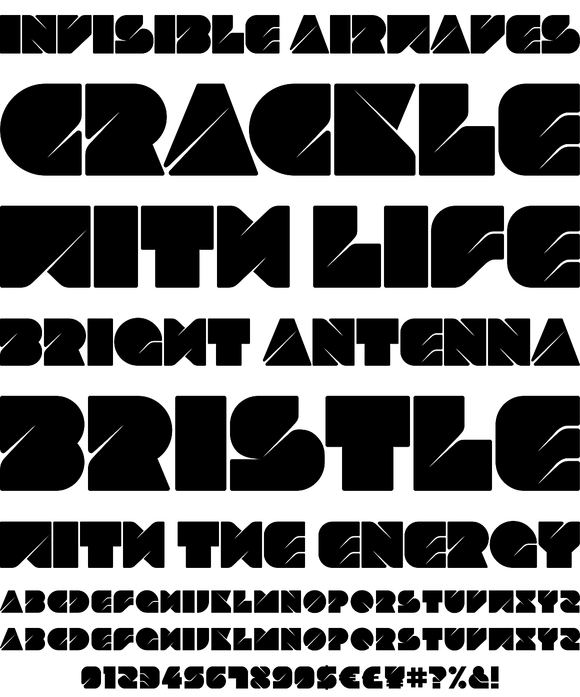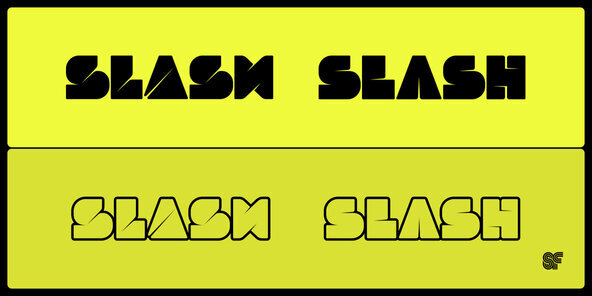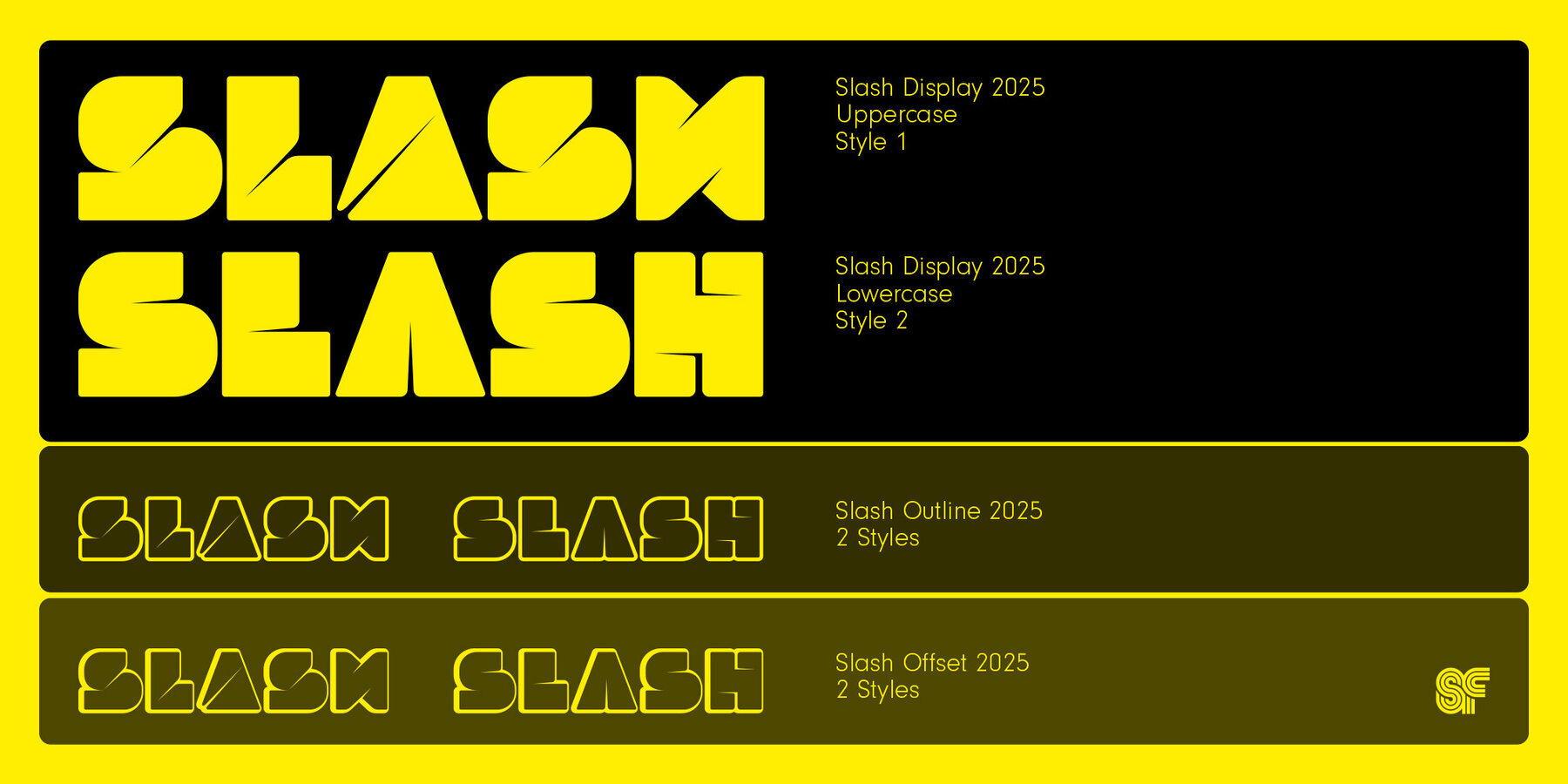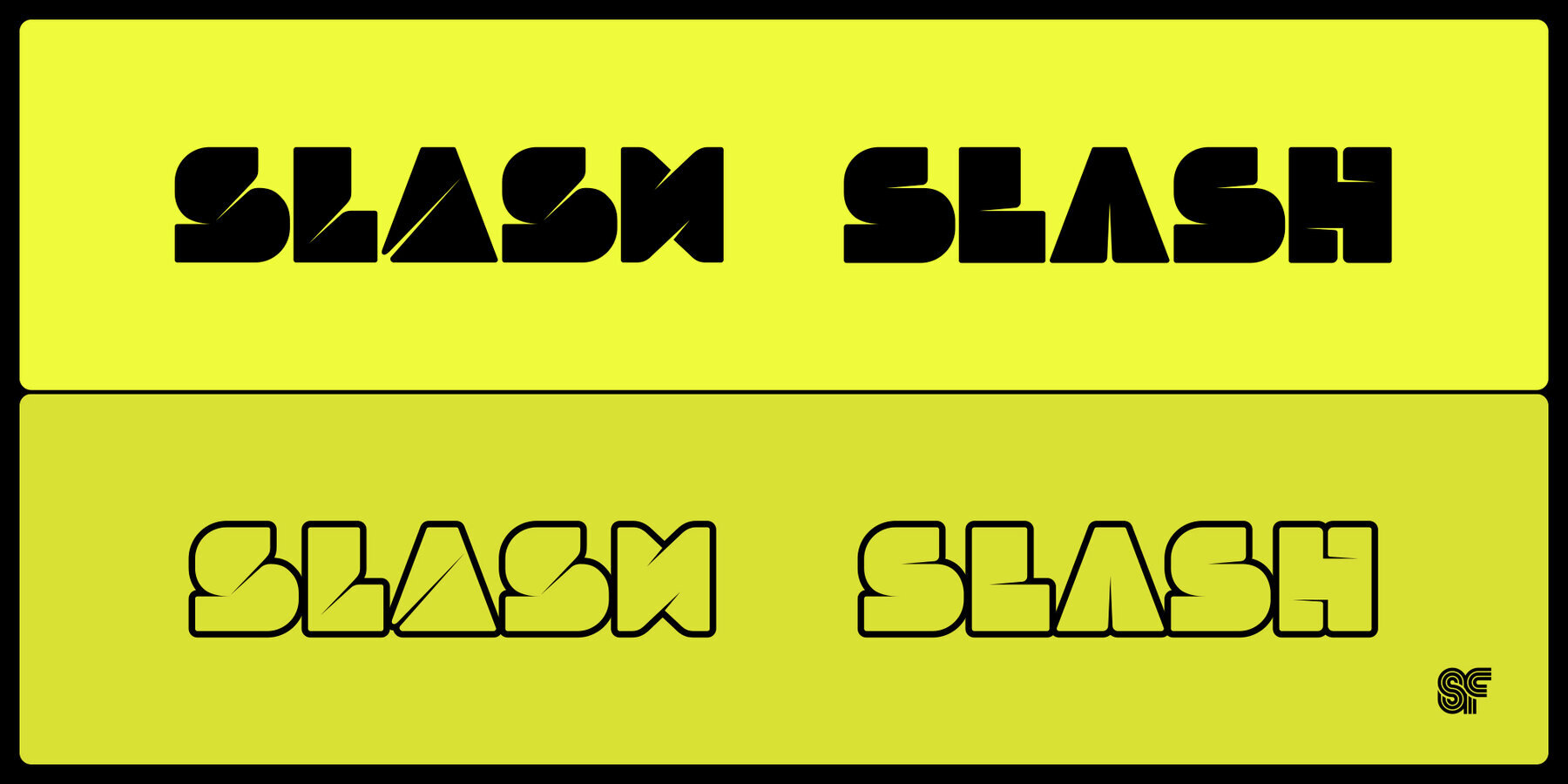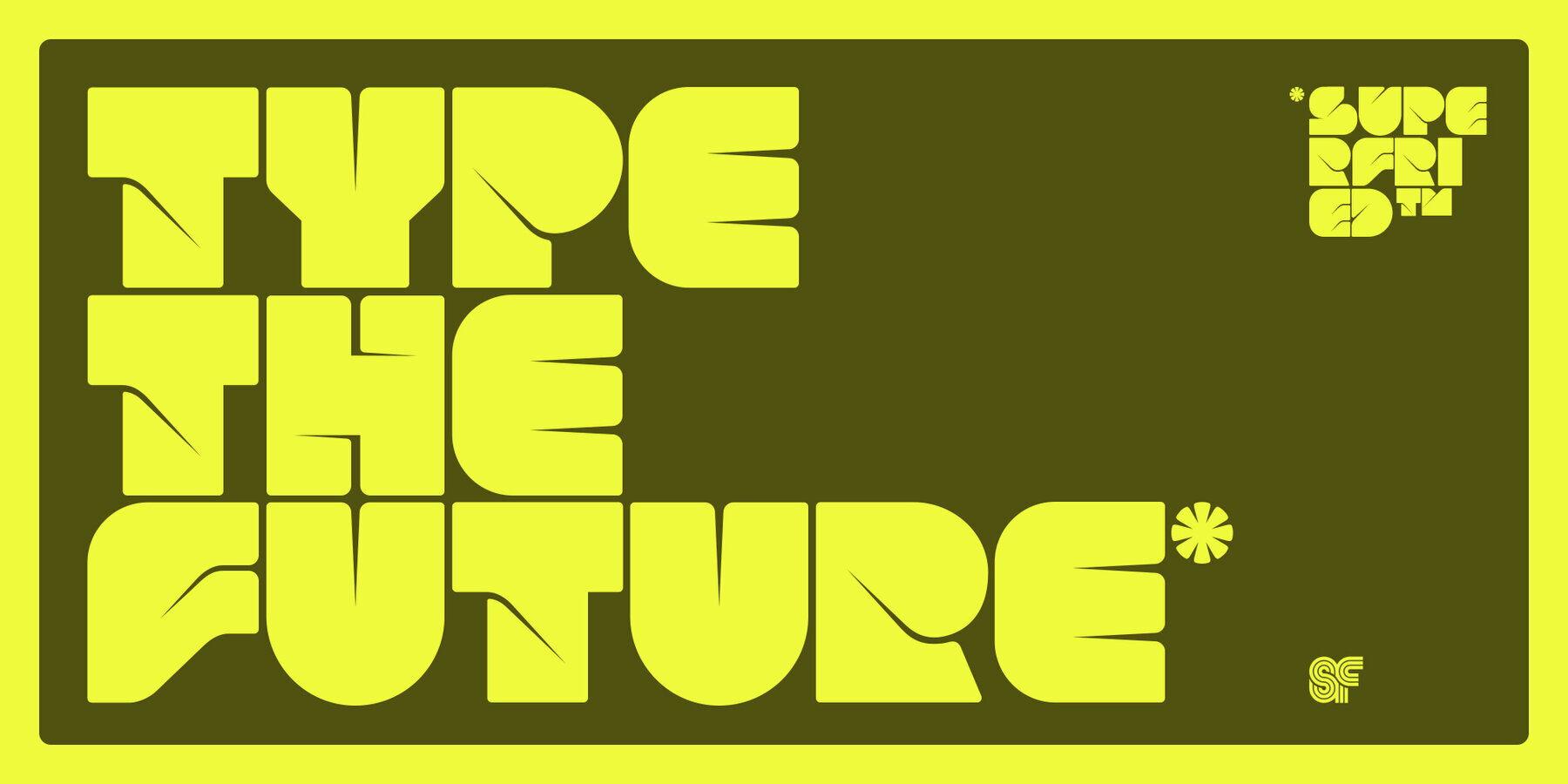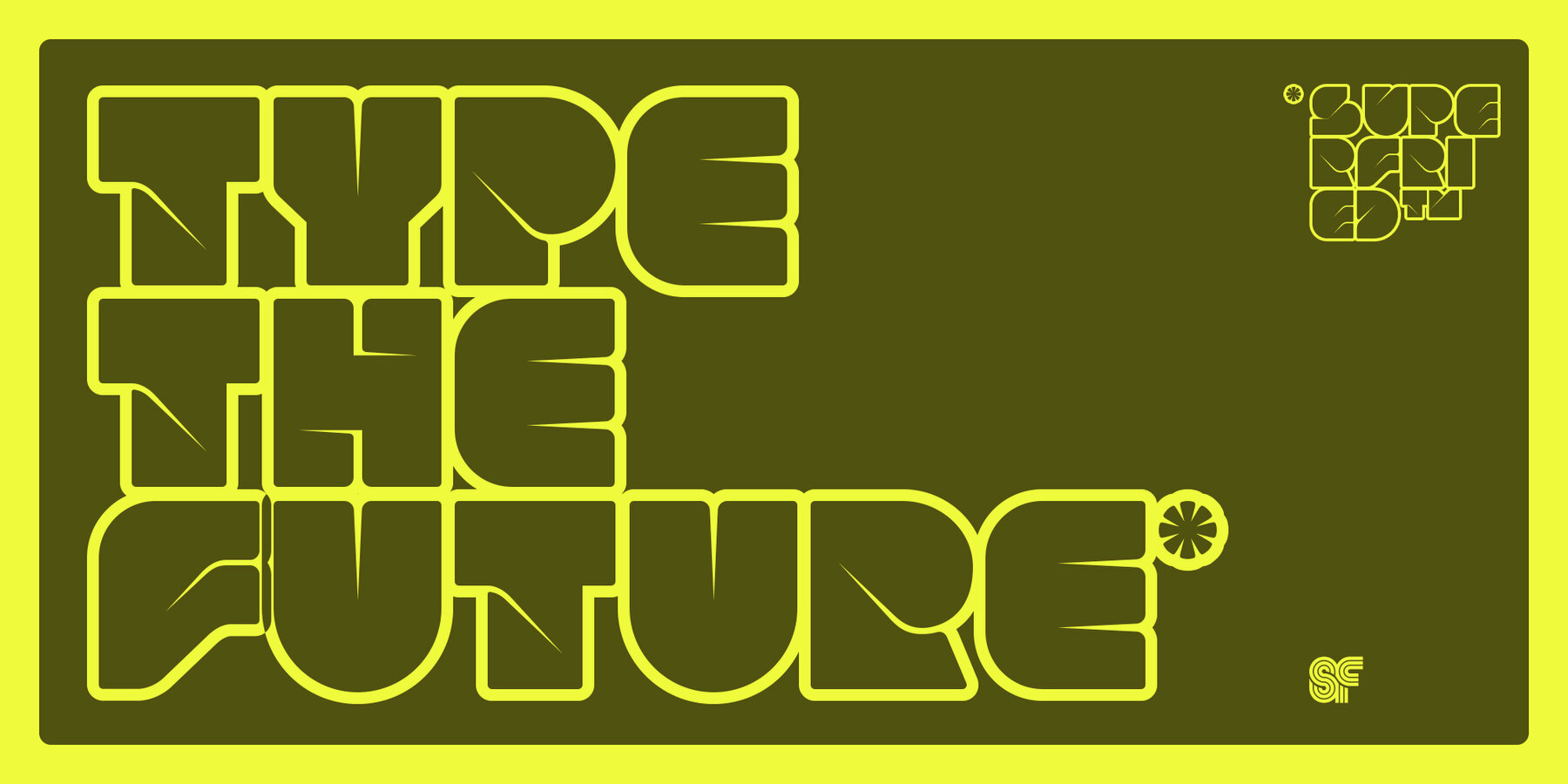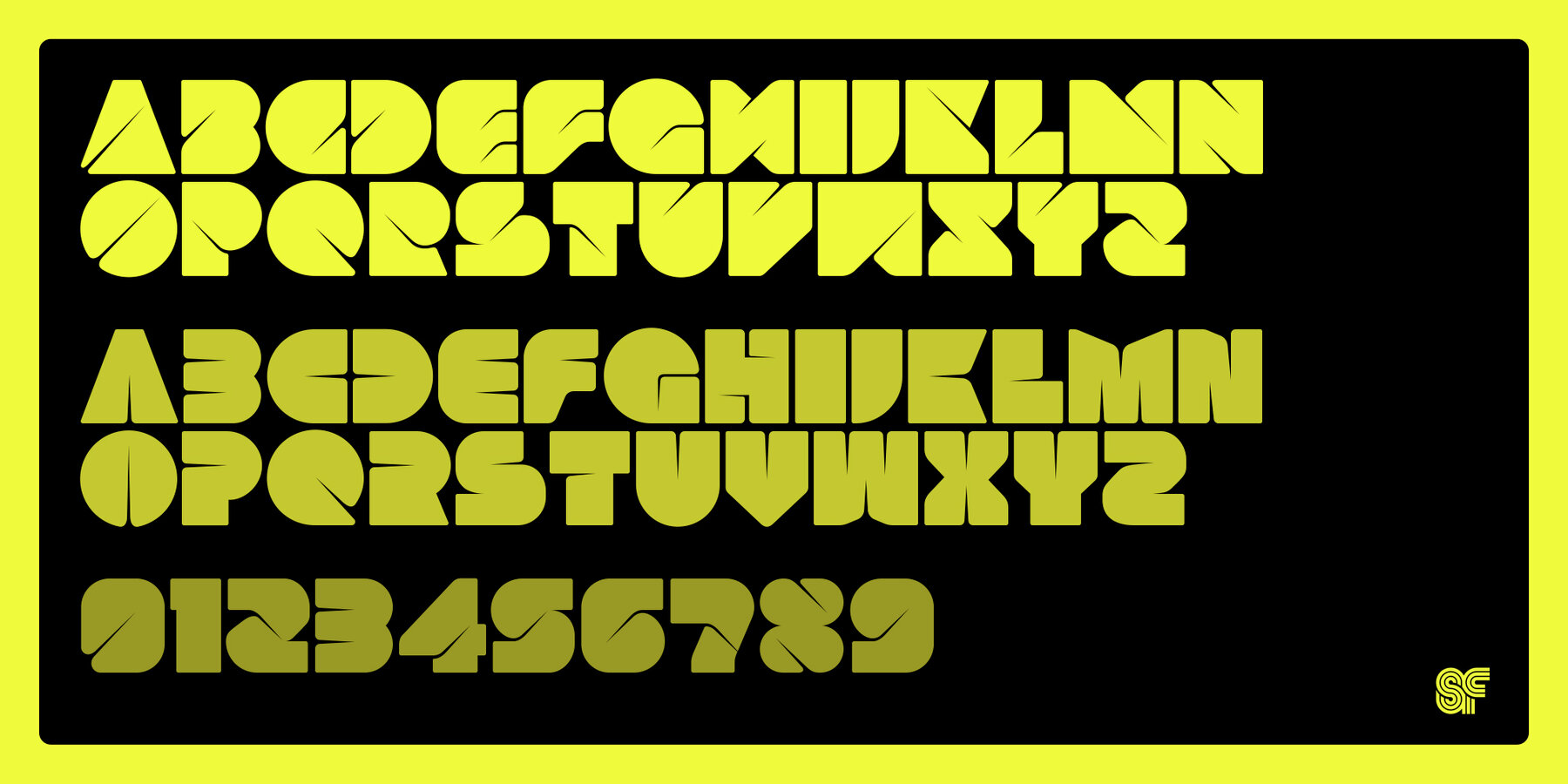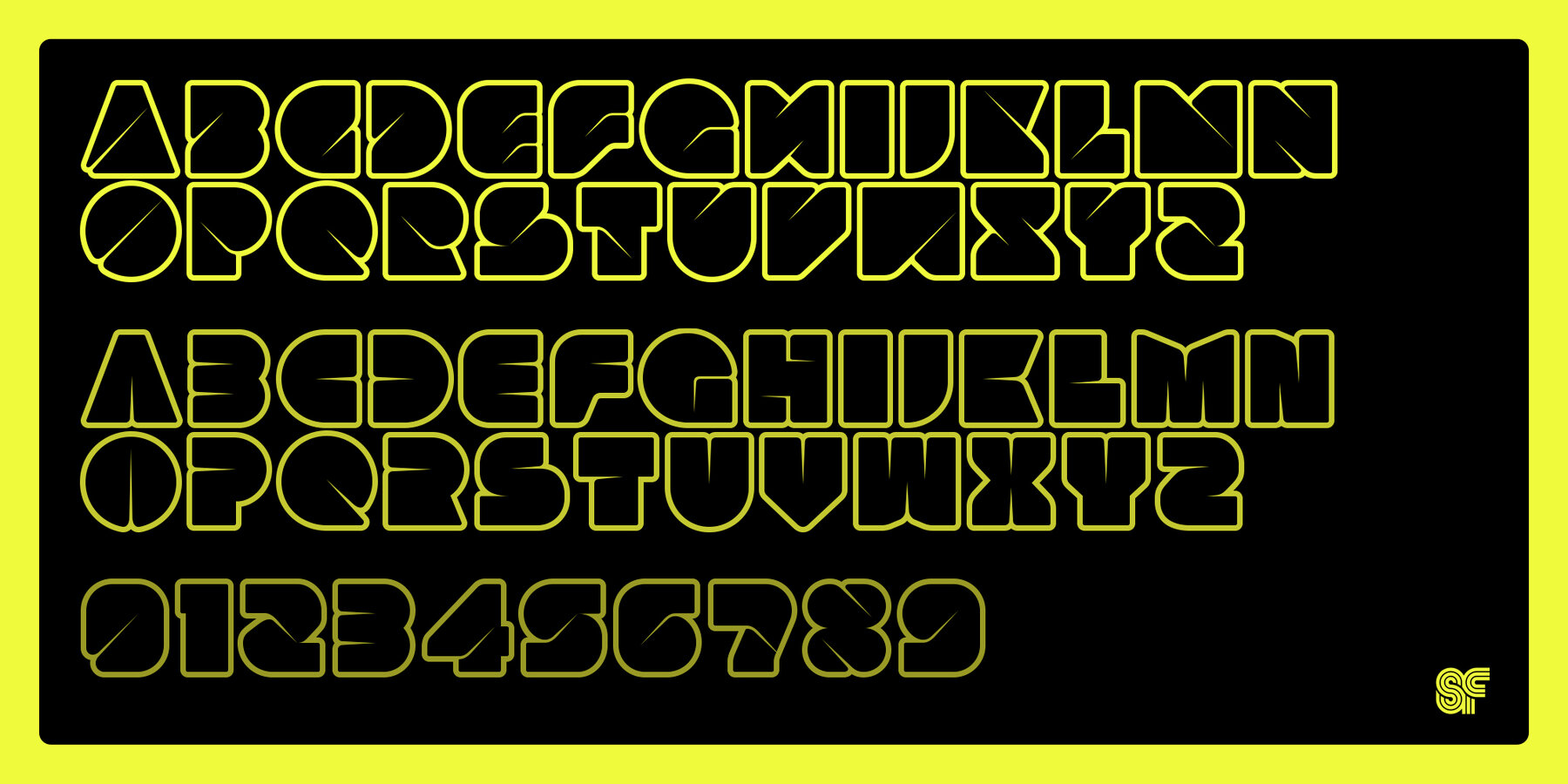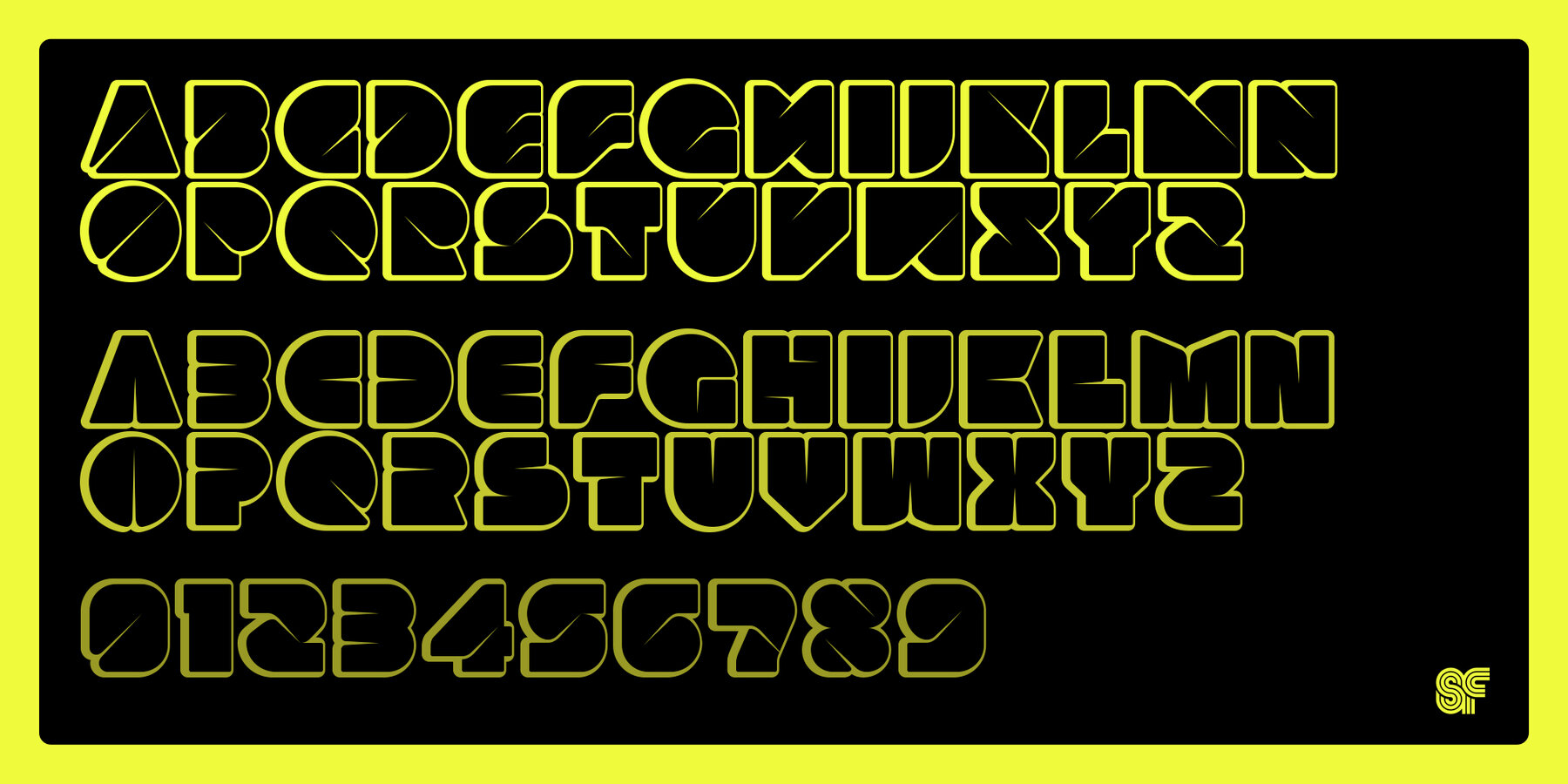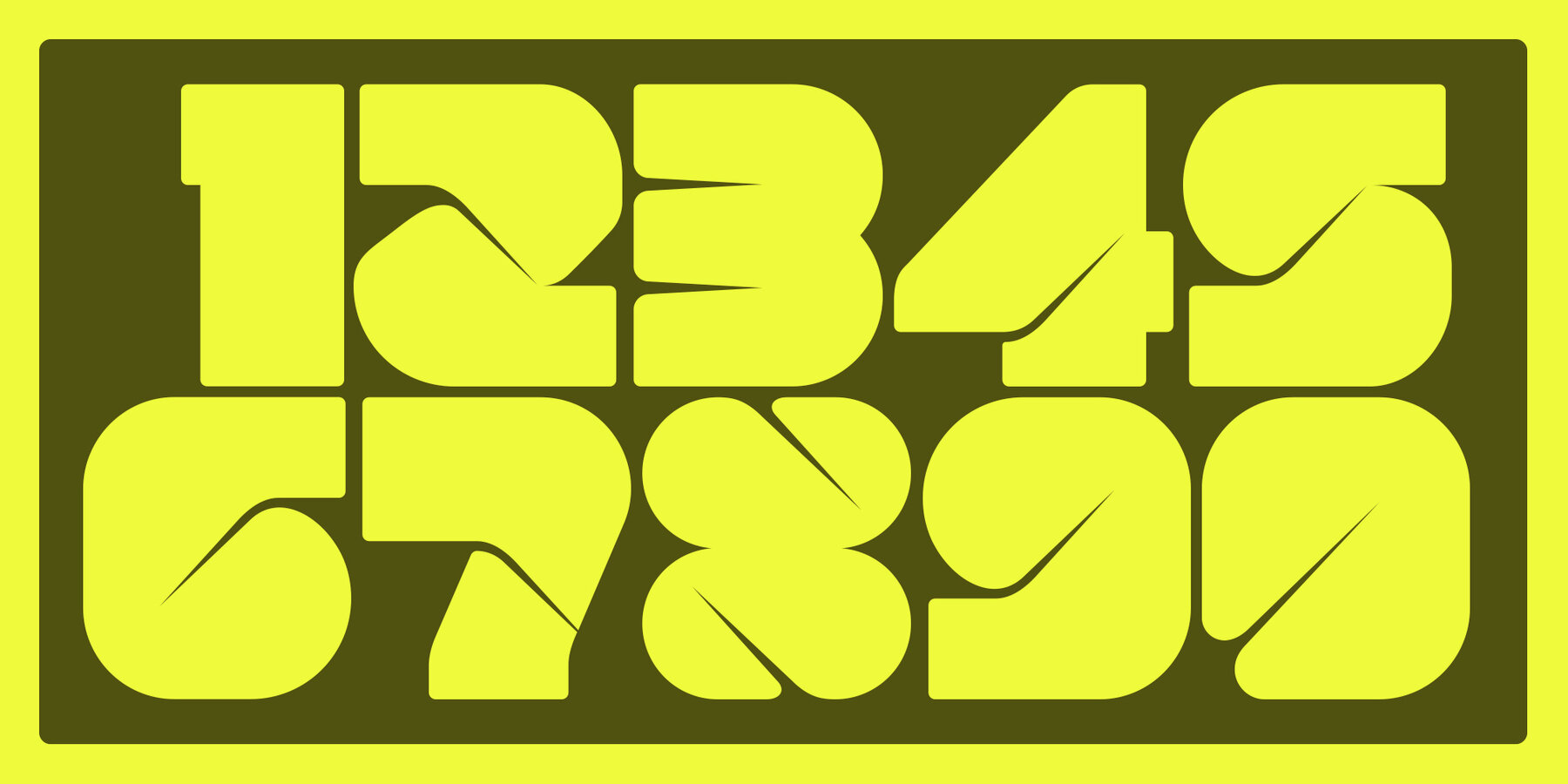
Slash
Slash is an experimental, all-caps, no-nonsense display typeface designed by Superfried.
Slash is an experimental, all-caps, no-nonsense display typeface designed by Superfried. Slash, as it’s name suggests, is bold & makes no apologies for it. Sculptured from solid blocks, it features distinct incisions & intricate curves to articulate the separate glyphs, resulting in a high impact typeface. Slash has been featured on the Behance curated typography gallery TypographyServed.com. and features three styles display, outline and offset.